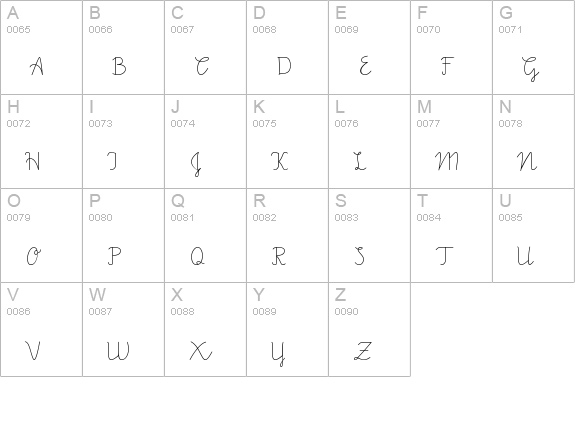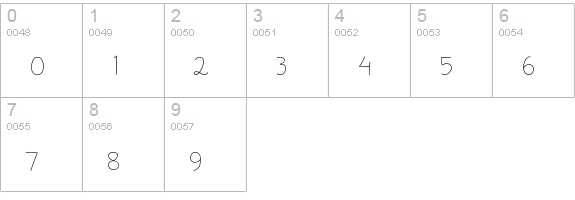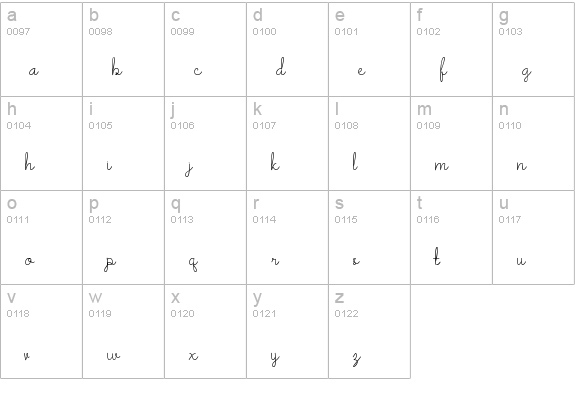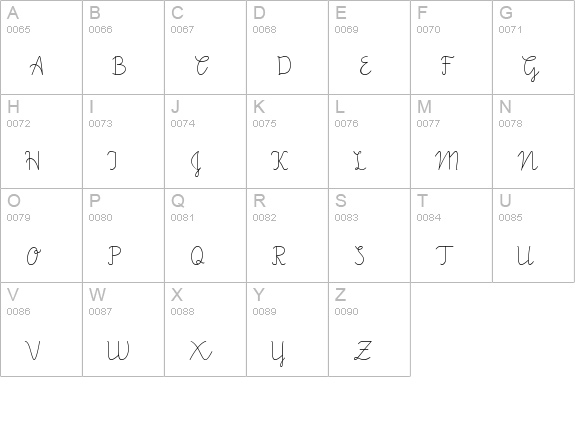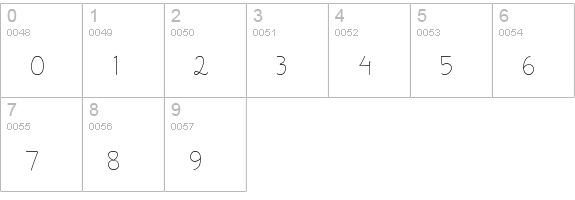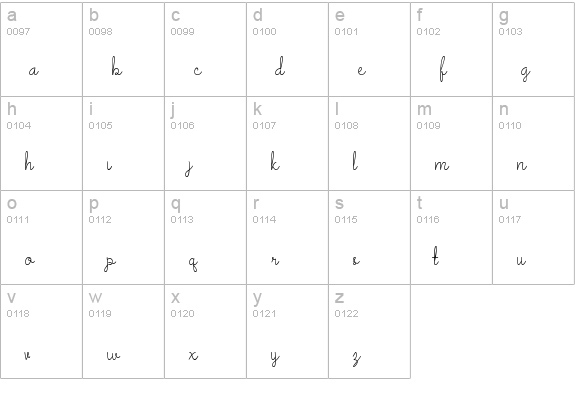
Beautifu msterda Font Details
Beautifu msterda is a free for personal use font in the Script > Calligraphy category, designed by alfarisix. It has been downloaded 823 times and is available for Windows, Mac and Linux.
Introducing the stunning Beautifu msterda font, a captivating typeface that exudes elegance and charm. With its unique blend of modern and classic elements, this font is perfect for adding a touch of sophistication to any design project. The flowing lines and intricate details of Beautifu msterda font make it a truly eye-catching choice for logos, branding, invitations, and more.